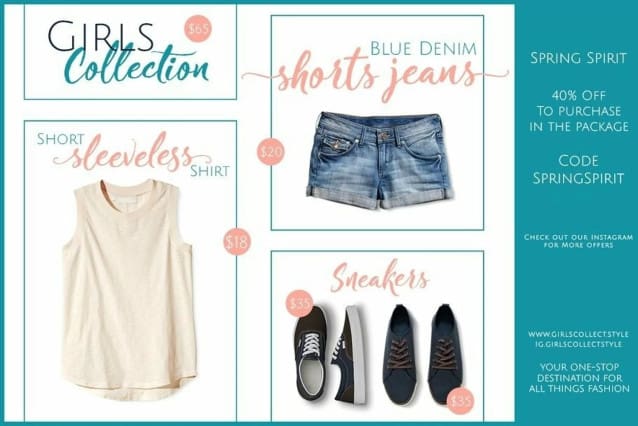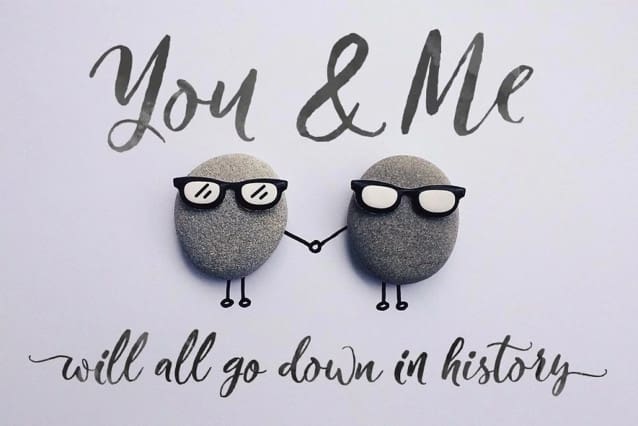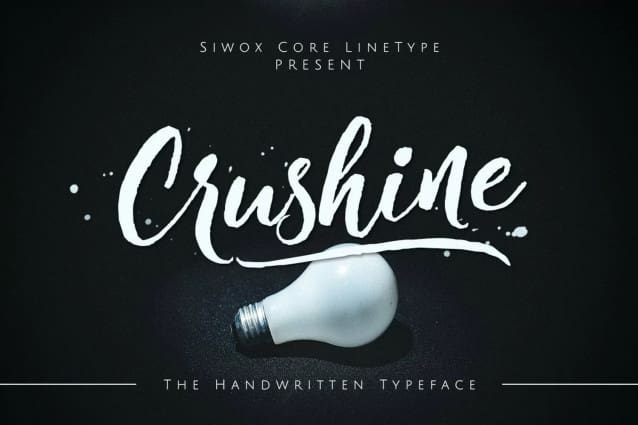
Crushine Brush Font
Crushine Brush Font is a casually and quickly written brush script. Letters are made with a brush pen on a paper. Then scanned and carefully drawn into a vector format. There is just a handmade typeface so it looks good in small and big sizes. These elements give Crushine its organic, authentic and laid-back characteristics.
Crushine Brush Font is not textured brush font, contemporary approach to design, handmade natural with a less regular baseline. Suitable for use in title design. Such as apparel, invitations, books tittle, stationery design, quotes, branding, logos, greeting card, t-shirt, packaging design, poster and more. Crushine includes a complete set of uppercase and lowercase letters, as well as multi-language support, numbers, punctuation, ligatures.